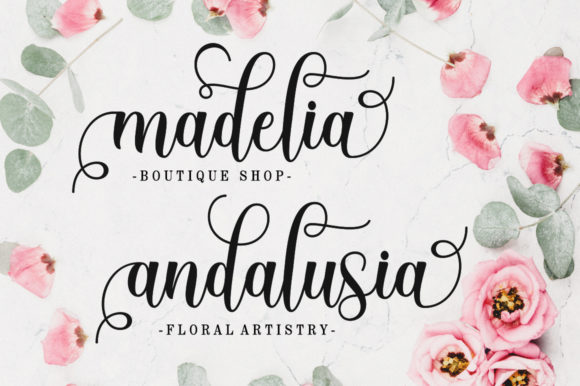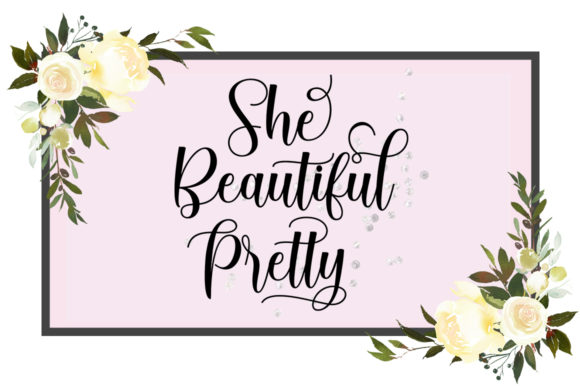
Batavia Script Font
db-ku.com - Script & Handwritten -- Batavia Script is a modern calligraphy design that combines an elegant and beautiful style with unique swashes.